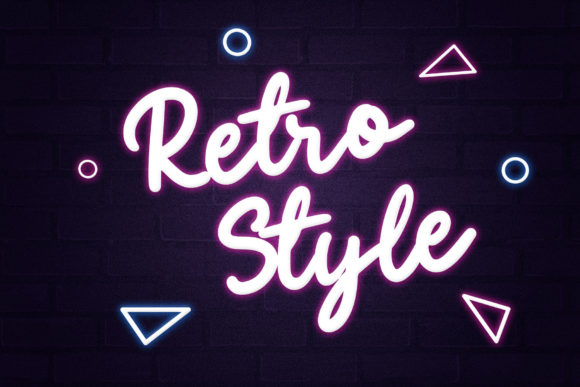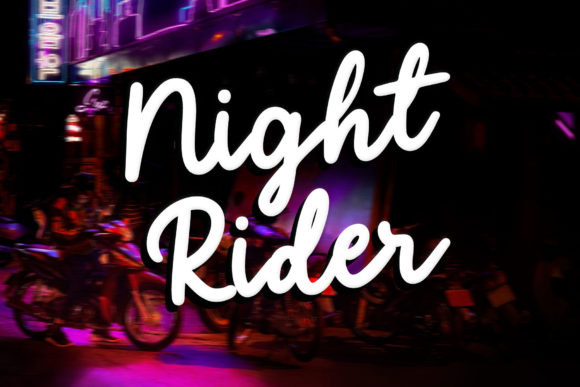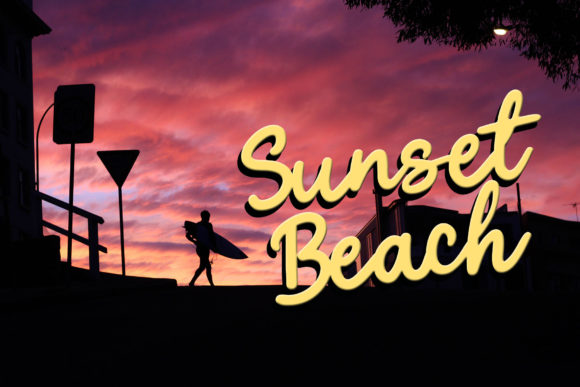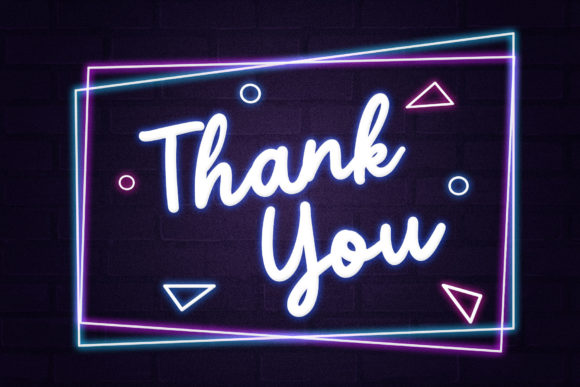
Introducing the Eighties Retro Script Font: A Timeless Design for Modern Creations
The Eighties Retro Script Font is a stunning addition to any designer’s arsenal, offering a unique blend of nostalgia and versatility. With its timeless design, this font is perfect for a wide range of projects, from crafting and scrapbooking to branding and advertising. In this article, we’ll dive into the world of the Eighties Retro Script Font, exploring its features, benefits, and uses.
A Blast from the Past: The Inspiration Behind the Eighties Retro Script Font
The Eighties Retro Script Font is inspired by the iconic typography of the 1980s, a decade known for its bold, colorful, and playful aesthetic. The font’s design is reminiscent of classic script fonts from the era, with flowing curves, dynamic swashes, and a dash of nostalgia. Whether you’re a fan of retro design or simply looking for a unique font to add to your collection, the Eighties Retro Script Font is sure to impress.
Timeless Design for Modern Creations
So, what makes the Eighties Retro Script Font so special? For starters, its timeless design ensures that it will never go out of style. Unlike trendy fonts that may look dated in a few years, this font’s classic aesthetic will remain relevant for years to come. Additionally, its versatility makes it perfect for a wide range of projects, from:
• Branding and advertising: Add a touch of nostalgia to your logo, brochures, or social media graphics.
• Crafting and scrapbooking: Create beautiful, eye-catching titles and headings for your handmade projects.
• Stationery and invitations: Add a personal touch to your cards, letters, and invitations.
• Digital design: Use the font in your website headers, blog posts, or social media graphics.
Key Features of the Eighties Retro Script Font
The Eighties Retro Script Font comes with a range of features that make it a must-have for designers and crafters. Some of its key features include:
• Unique and stylish design: Inspired by classic script fonts of the 1980s.
• Versatile: Suitable for a wide range of projects, from branding to crafting.
• Easy to read: Clear and legible, even at small sizes.
• Multilingual support: Supports a range of languages, including English, Spanish, French, and more.
Tips for Using the Eighties Retro Script Font
To get the most out of the Eighties Retro Script Font, here are a few tips to keep in mind:
• Mix and match: Pair the font with other fonts for a unique and interesting look.
• Experiment with colors: Try out different colors and gradients to add depth and interest to your design.
• Play with swashes: Use the font’s dynamic swashes to add a touch of elegance to your design.
• Keep it simple: Don’t be afraid to use the font on its own – its simplicity can be just as effective as a bold, over-the-top design.